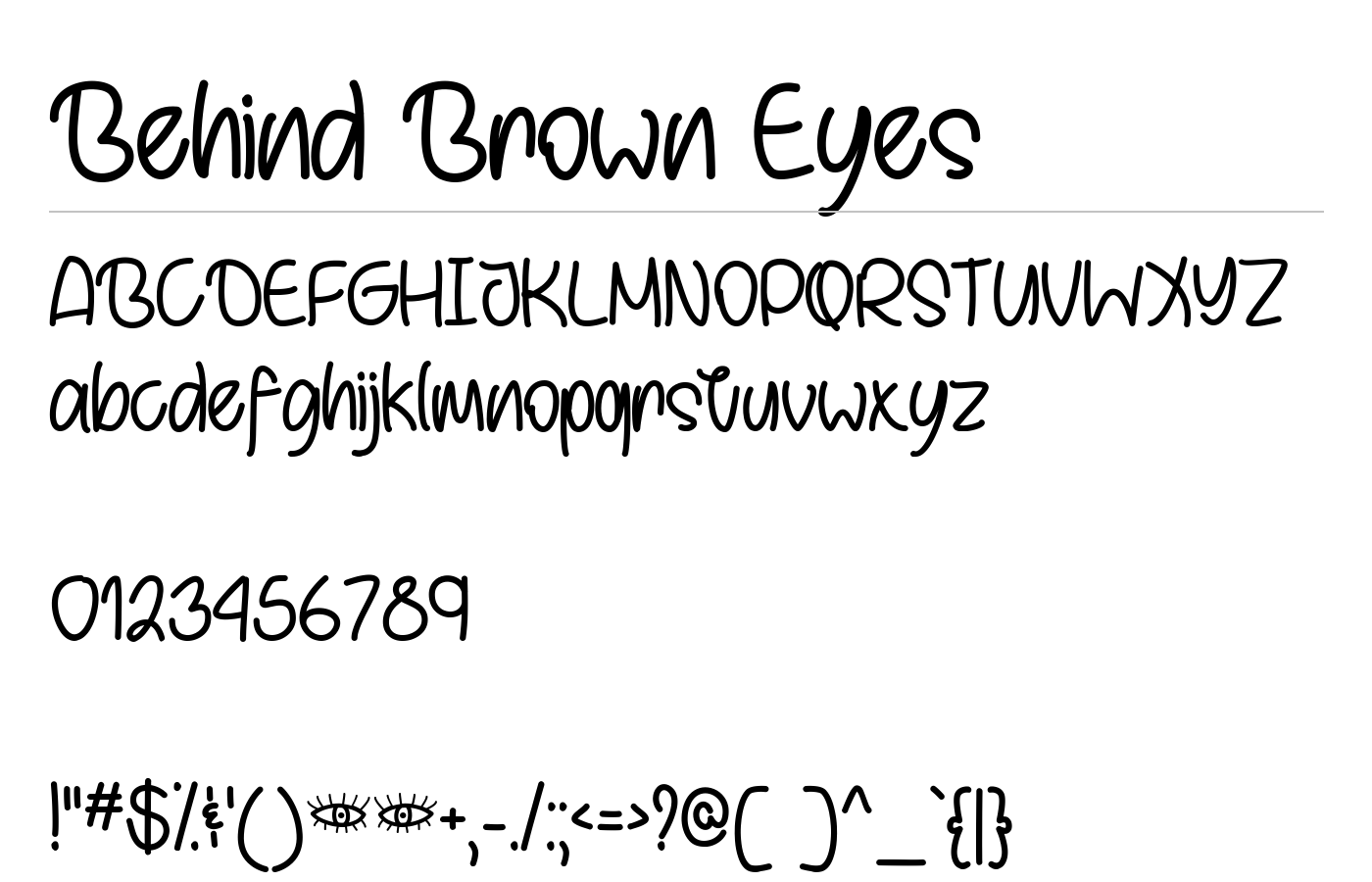
Behind Brown Eyes is a playful, casual handwritten sans serif font with a light weight and narrow width that creates an airy, friendly impression. Its round, slightly irregular shapes and unique character details give it a personal, approachable feel, making it ideal for informal branding, children's content, or creative projects seeking a warm, expressive touch. This font works best in headlines, logos, and social media graphics where its charming personality can truly shine.
Behind Brown Eyes Font
About Behind Brown Eyes Font
| Font family | Behind Brown Eyes Font |
| Designer | Misti's Fonts |